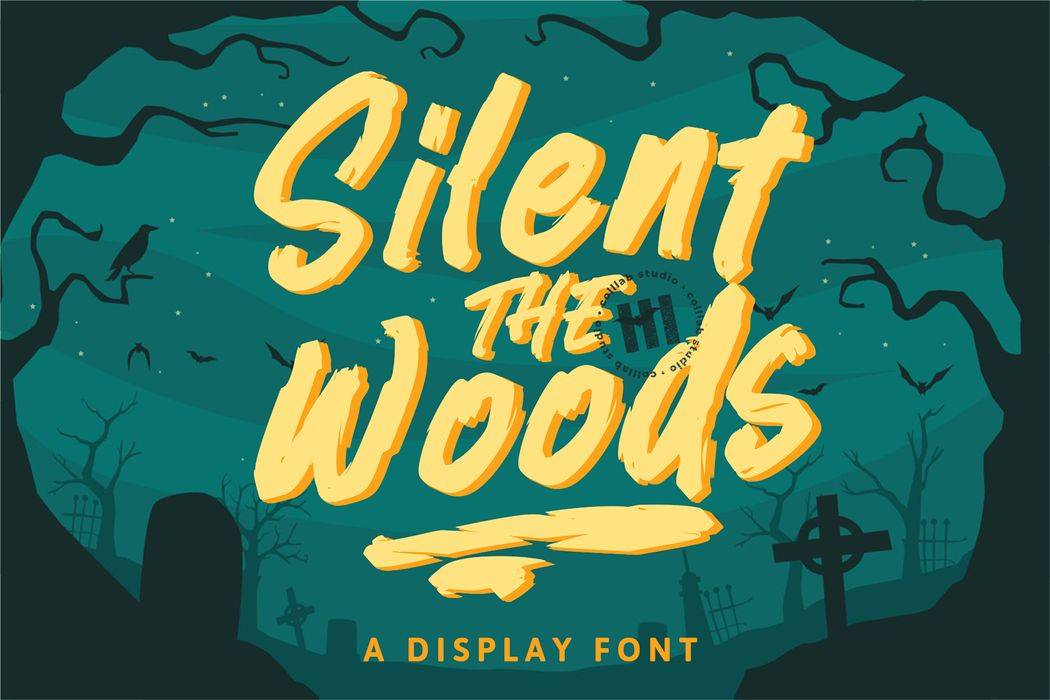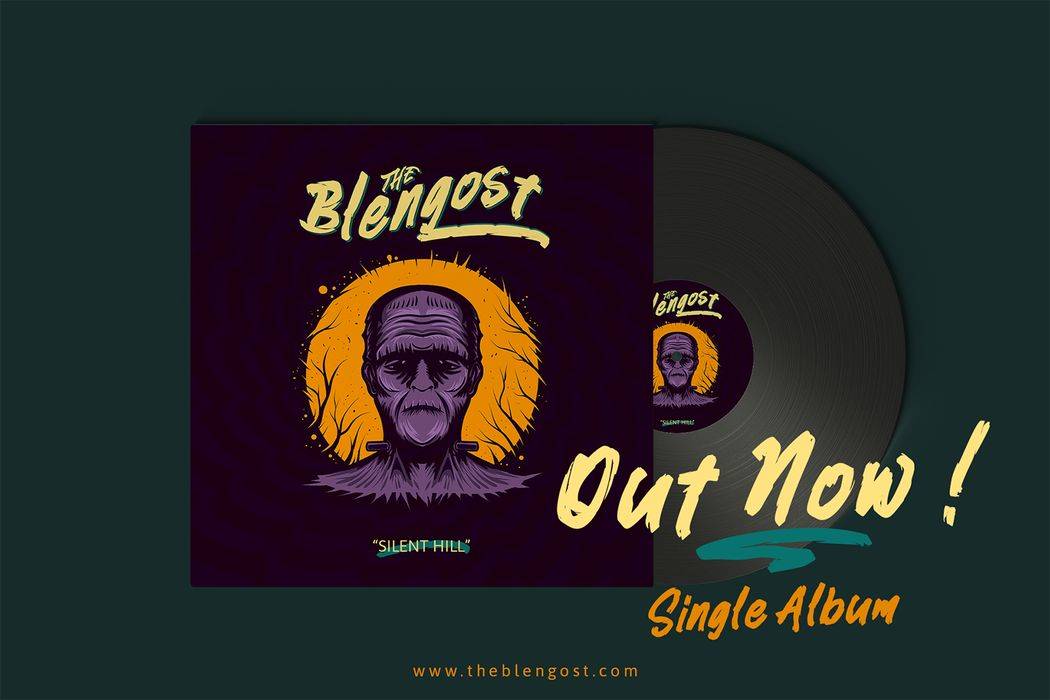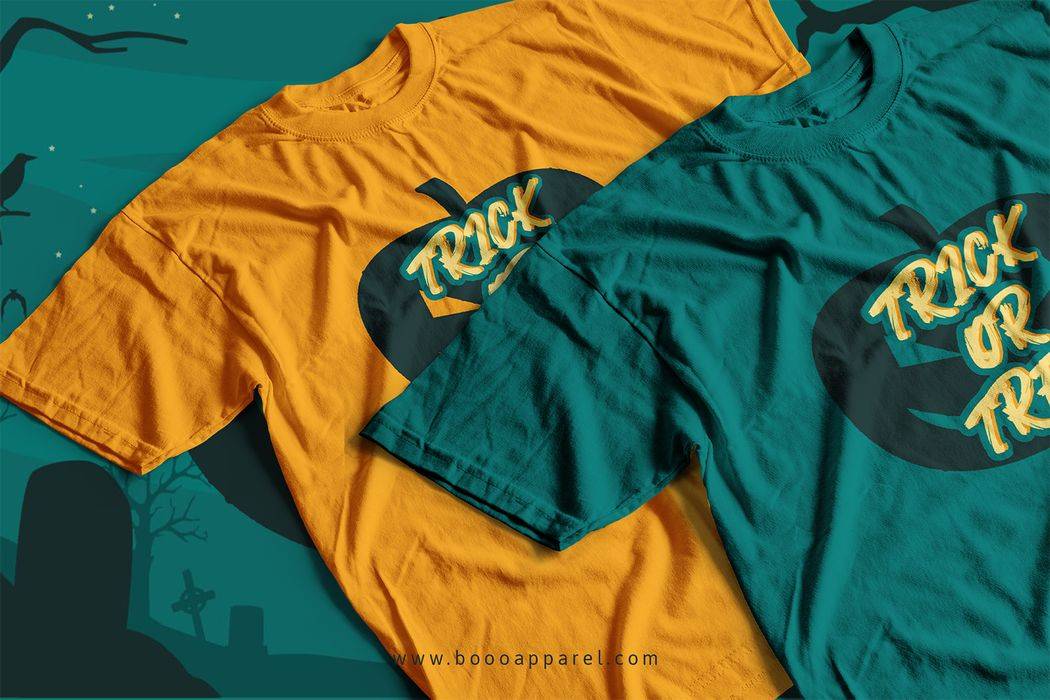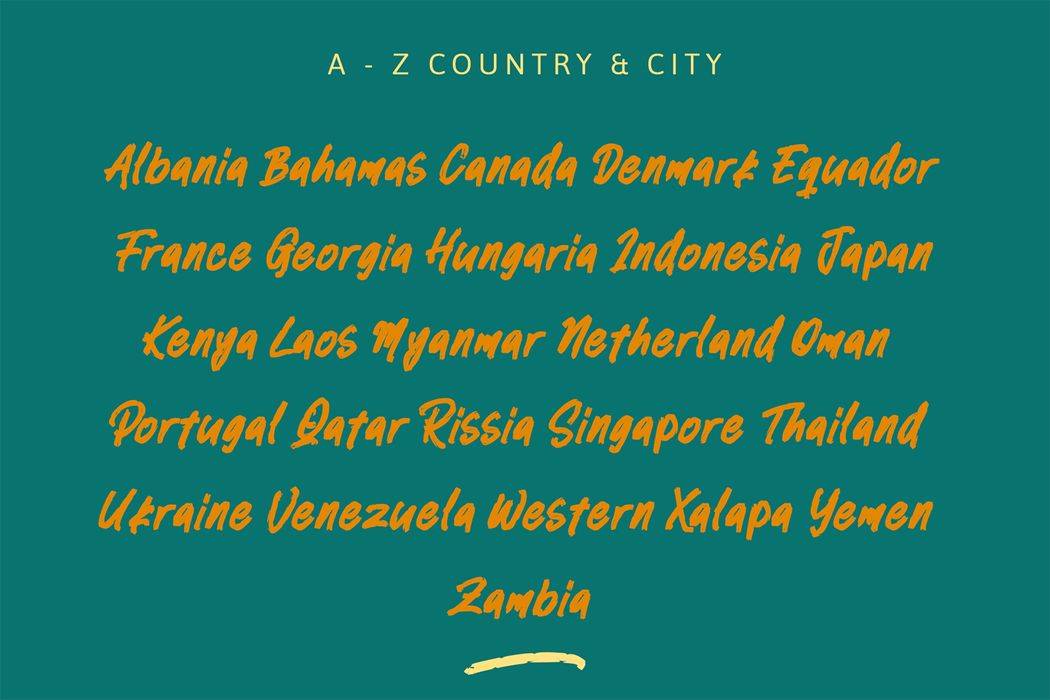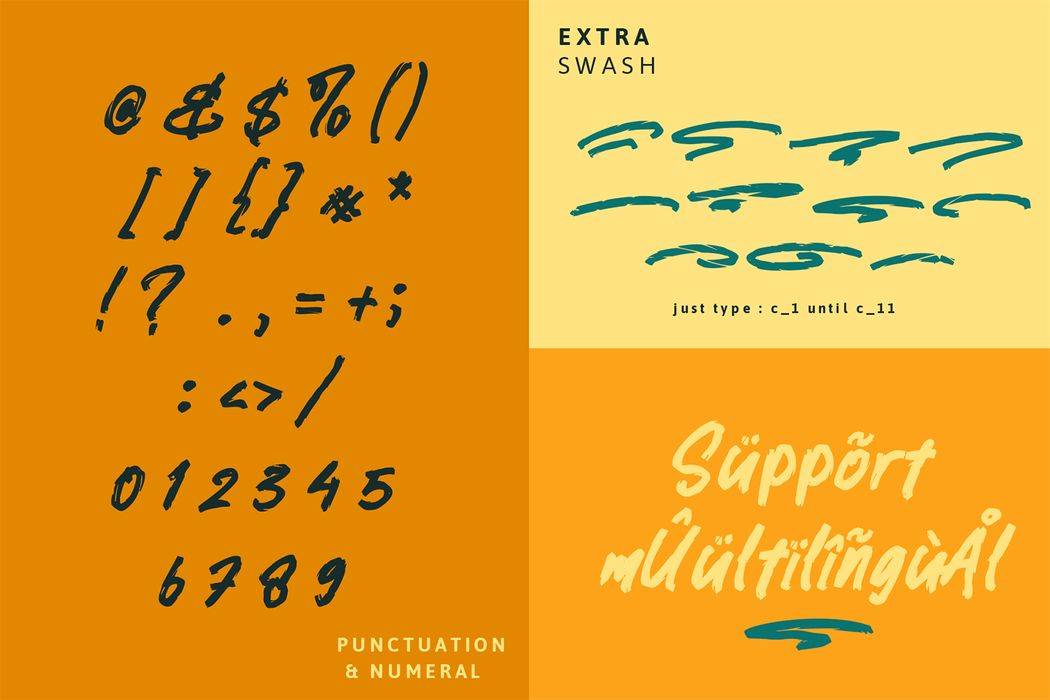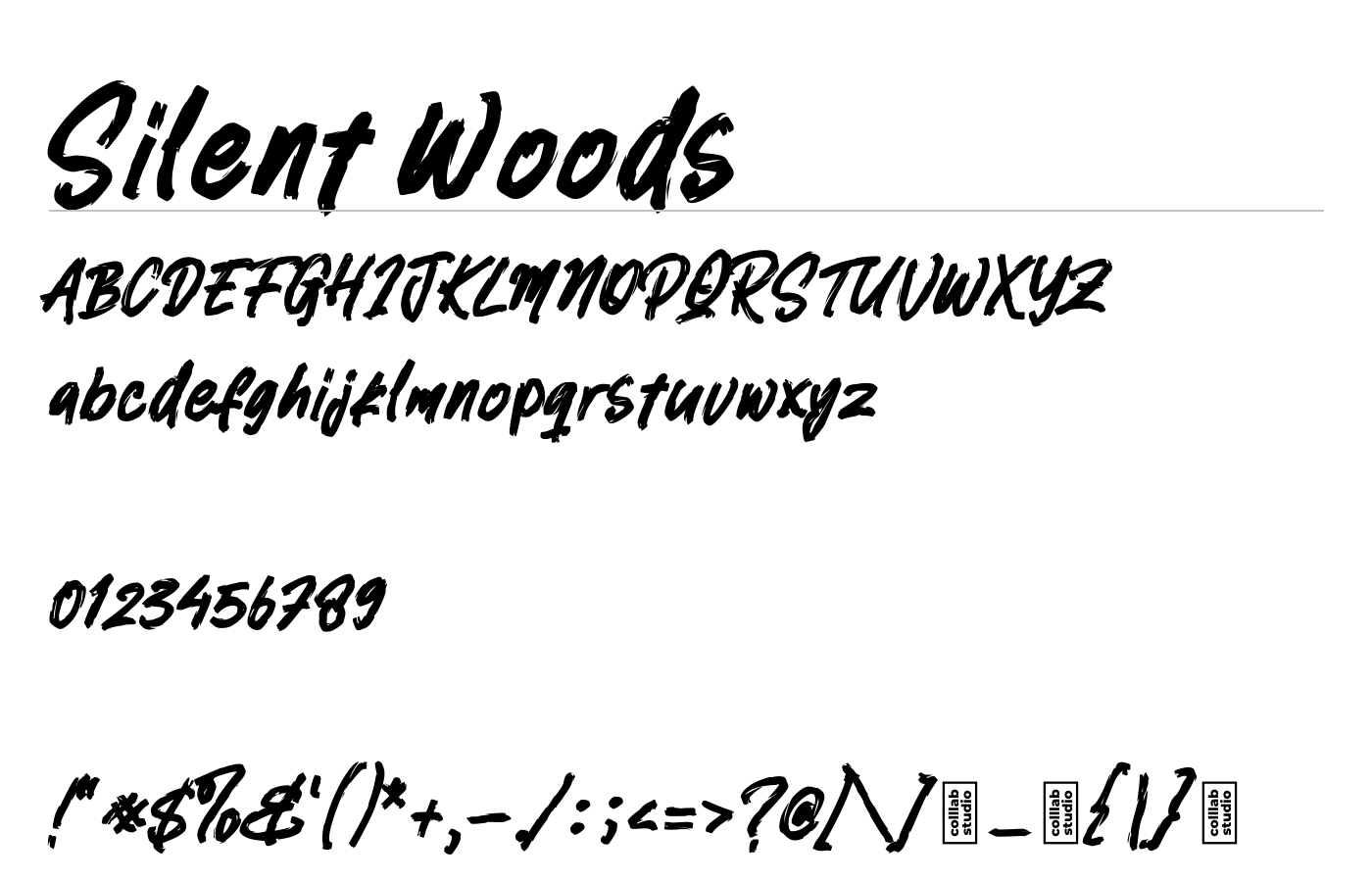
Silent The Woods is a bold and dynamic brush script font with a rough, hand-painted texture giving it an energetic, adventurous feel. Its irregular strokes and lively character shapes make it perfect for designs needing a natural, expressive touch, such as outdoor branding, posters, and creative headlines. This font communicates a sense of movement and raw authenticity, ideal for projects seeking a stylish yet untamed aesthetic.
Silent The Woods Font
About Silent The Woods Font
| Font family | Silent The Woods Font |
| Release date | 2020-08-23 |
| Designer | Colllab Studio Team |